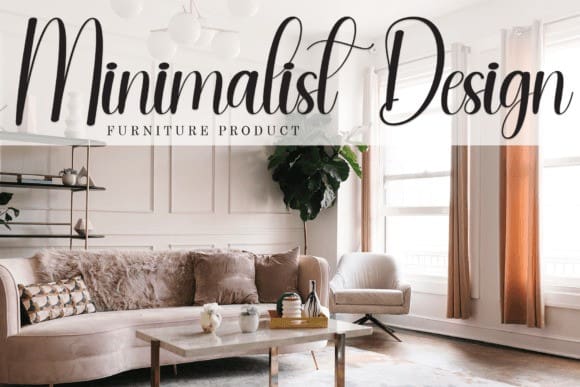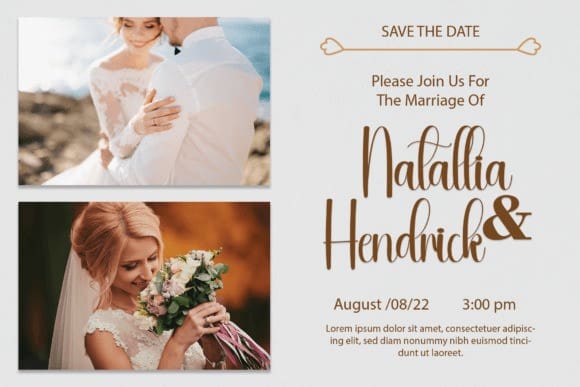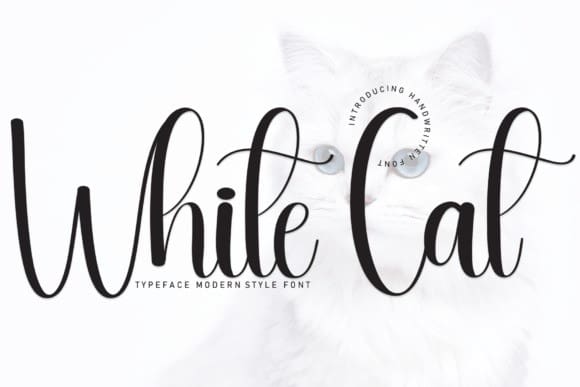
White Cat Font
White Cat Font by william jhordy 10,868 downloads
White Cat Font
White Cat Font is a sweet and friendly handwritten font. Fresh and neat, this font is ideal for writing wedding invitations, cards, or any other design that might need a fun touch!